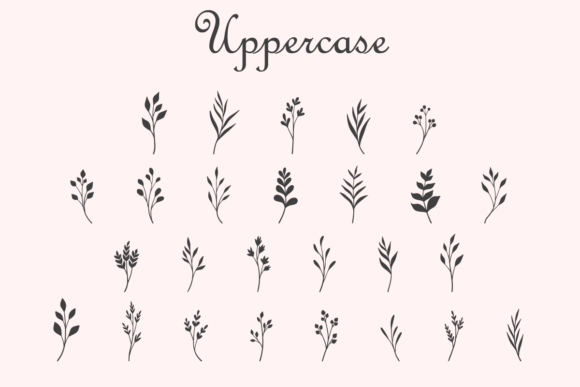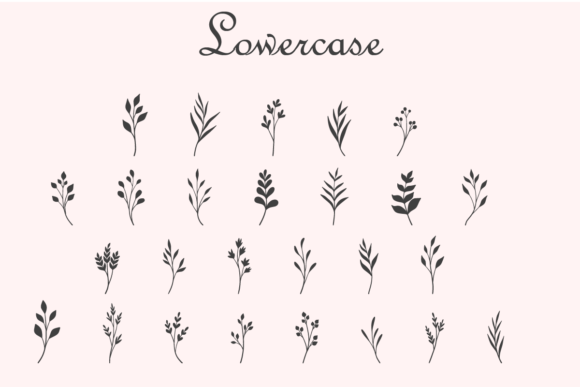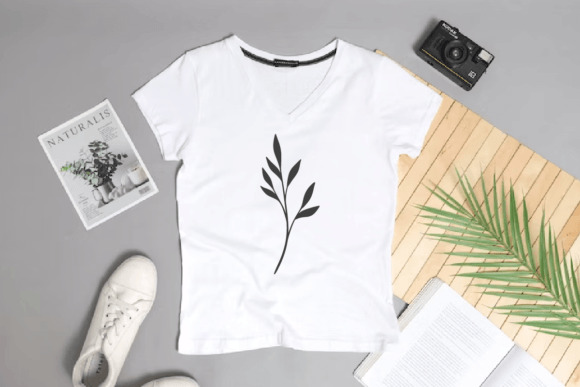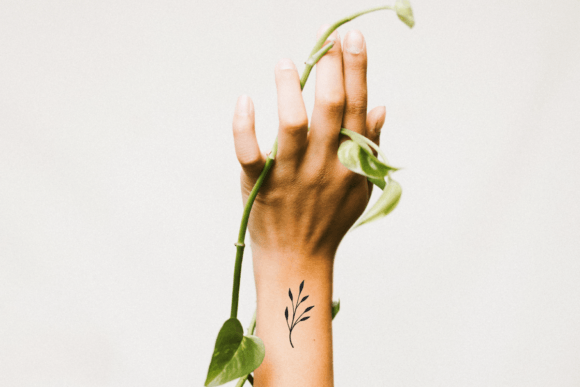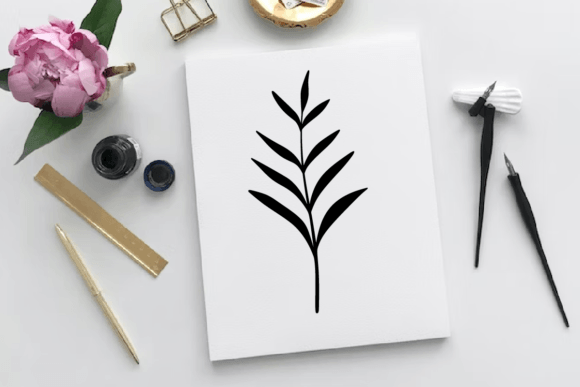
Gardenia Font: A Beautiful Dingbats Font for Decorative Designs
Are you a designer or crafter looking for a unique and creative font to add a touch of elegance to your projects? Look no further than the Gardenia Font, a stunning dingbats font that contains both upper and lowercase letters. This beautiful font is perfect for decorative designs, sticker fonts, tattoos, and so much more.
What is Gardenia Font?
Gardenia Font is a type of dingbats font, which means it features decorative symbols and illustrations rather than traditional alphabet letters. However, what sets Gardenia apart is that it includes both upper and lowercase letters, making it a versatile and functional font for a wide range of design applications.
Characteristics of Gardenia Font
The Gardenia Font boasts a range of characteristics that make it a standout choice for designers and crafters. Some of its key features include:
- Unique and decorative design: The Gardenia Font features intricate and beautiful designs that are sure to add a touch of elegance to any project.
- Upper and lowercase letters: Unlike many dingbats fonts, Gardenia includes both upper and lowercase letters, making it a practical choice for a wide range of design applications.
- High-quality design: The Gardenia Font is designed with high-quality graphics, ensuring that it looks great in any size or resolution.
Uses for Gardenia Font
The Gardenia Font is a versatile font that can be used for a wide range of design applications, including:
- Decorative fonts: Use the Gardenia Font to add a touch of elegance and sophistication to your designs.
- Sticker fonts: The Gardenia Font is perfect for creating stickers, labels, and other adhesive designs.
- Tattoos: The unique and decorative design of the Gardenia Font makes it a great choice for tattoo designs.
- Stationery and invitations: Add a touch of elegance to your stationery and invitations with the Gardenia Font.
- Digital designs: The Gardenia Font can be used for a wide range of digital designs, including social media graphics, blog posts, and more.
Tips for Using Gardenia Font
Here are a few tips for getting the most out of the Gardenia Font:
- Experiment with different sizes and colors: The Gardenia Font looks great in a wide range of sizes and colors, so don’t be afraid to experiment and find the perfect combination for your design.
- Pair with other fonts: The Gardenia Font pairs well with a wide range of other fonts, so try combining it with other fonts to create a unique and interesting design.
- Use for headlines and titles: The Gardenia Font is perfect for headlines and titles, where its decorative design can really make an impact.
The Gardenia Font is a beautiful and versatile dingbats font that is perfect for designers and crafters looking to add a touch of elegance to their projects. With its unique and decorative design, upper and lowercase letters, and high-quality graphics, the Gardenia Font is a great choice for a wide range of design applications. Whether you’re creating decorative fonts, sticker fonts, tattoos, or digital designs, the Gardenia Font is sure to be a valuable addition to your design toolkit.